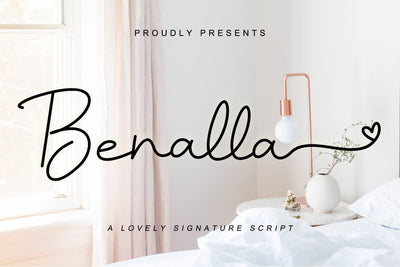
Benalla
Benalla is a beautiful, elegant, yet casual and simple font script featuring a natural look & feel.
It has beautiful swashes and ligatures and it’s perfect for logos, wedding invitations, posters,
social media posts, signatures, quotes, and much more!
- (a-z) titling, (a-z) swashes, and Ligature
- Support multilingual; ä ö ü Ä Ö Ü ß ¿ ¡